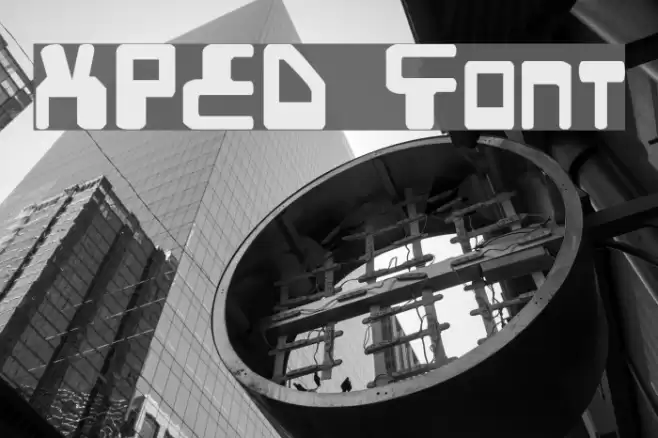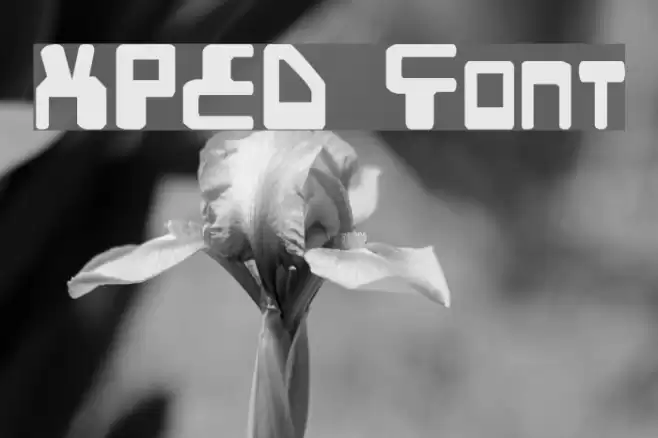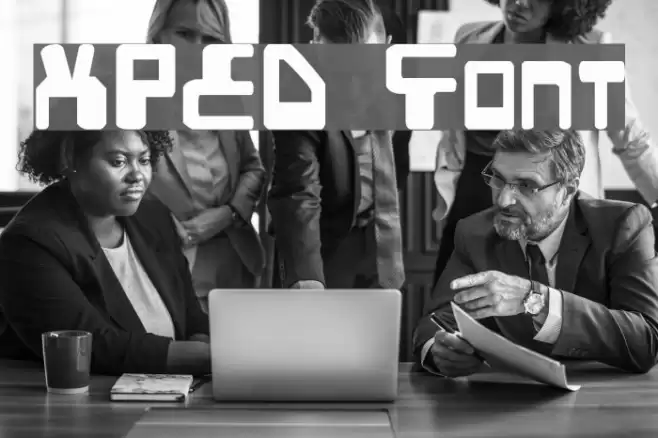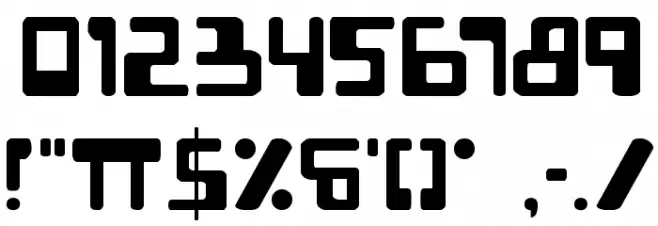
XPED Font
XPED Description
This font features a bold and geometric design with a futuristic aesthetic. The characters are constructed with thick, uniform strokes that create a strong visual impact. The angular and blocky shapes give it a modern and tech-inspired feel, making it ideal for projects that require a cutting-edge look. The uppercase and lowercase letters maintain a consistent style, while the numerals and special characters complement the overall design. Its distinct and striking appearance ensures readability while adding a unique flair to any text.
A bold, geometric font with a futuristic and tech-inspired design from Futuristic fonts.
- Proposed Projects: Ideal for technology branding, video game titles, sci-fi posters, and digital interfaces.